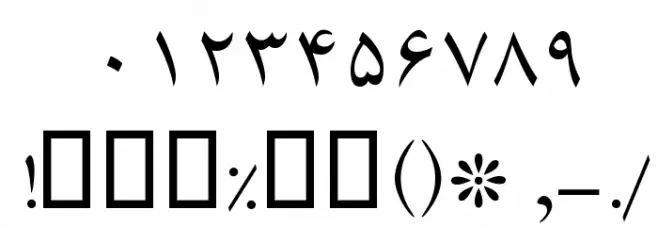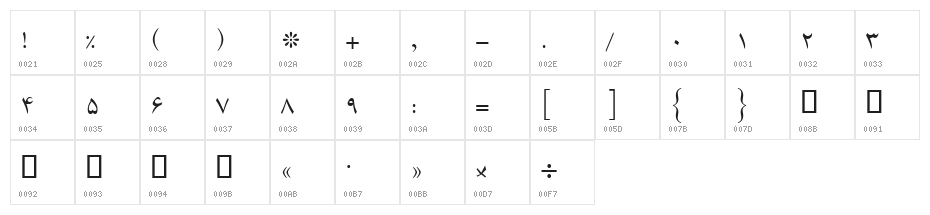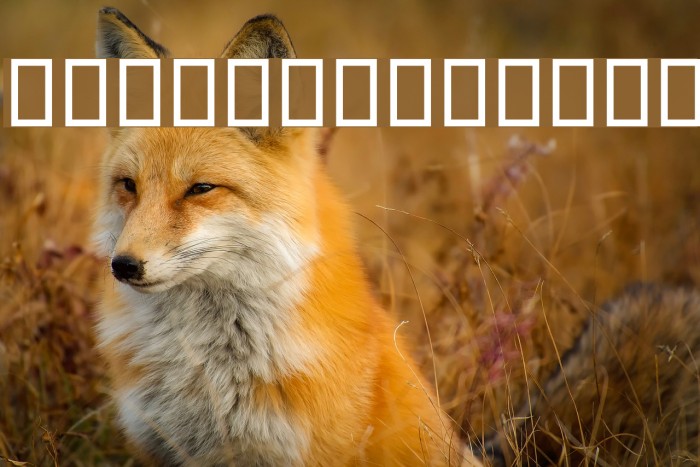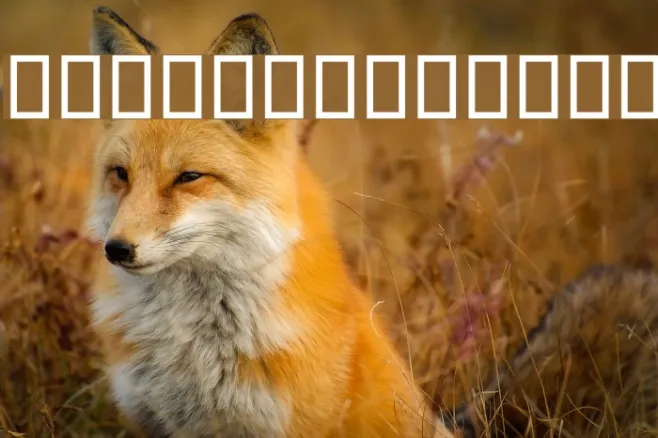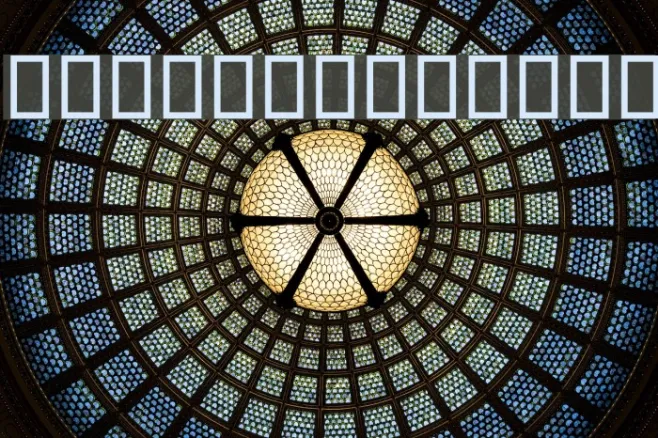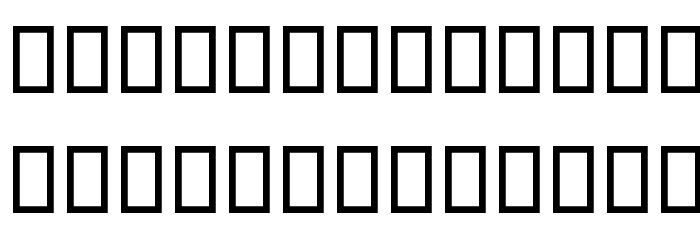
Karim Font
Karim Description
This font features a unique and artistic design, characterized by its flowing and dynamic strokes that resemble calligraphy. The characters are elegantly crafted with a sense of movement, making them appear lively and expressive. The numbers are particularly distinctive, with each numeral having its own flair and style. The special characters maintain the same artistic theme, adding a cohesive look to the entire set. This font is ideal for projects that require a touch of elegance and creativity, offering a visually appealing option for various design needs.
KARIM UPPERCASE
KARIM LOWERCASE
KARIM OTHER CHARS
| Overall Style | Artistic and elegant |
| Proposed Projects | Ideal for wedding invitations, artistic posters, branding materials, and creative projects that require a touch of elegance. |